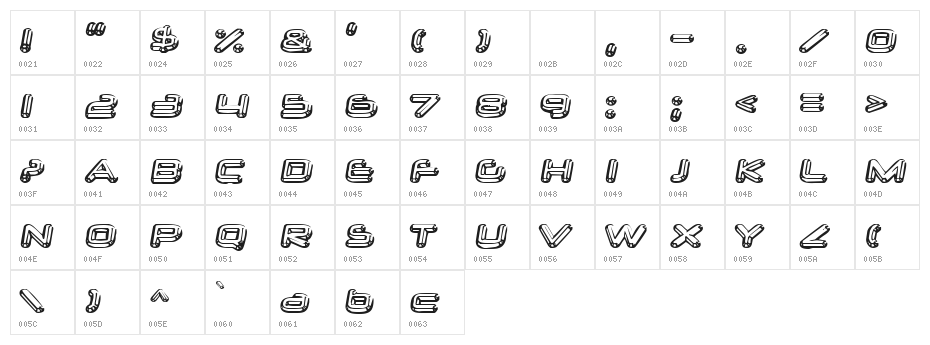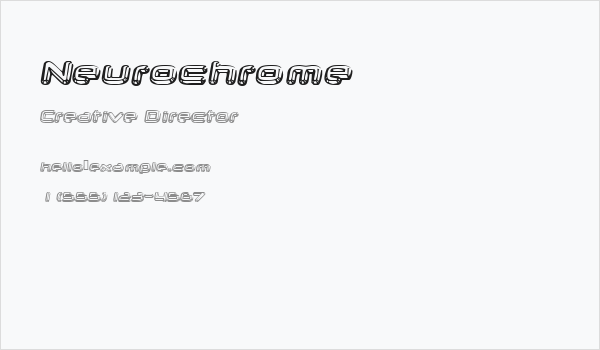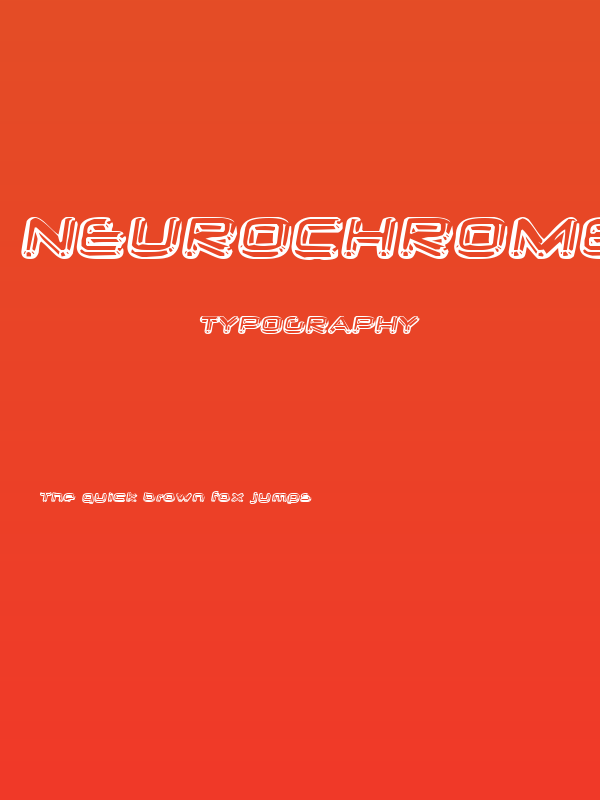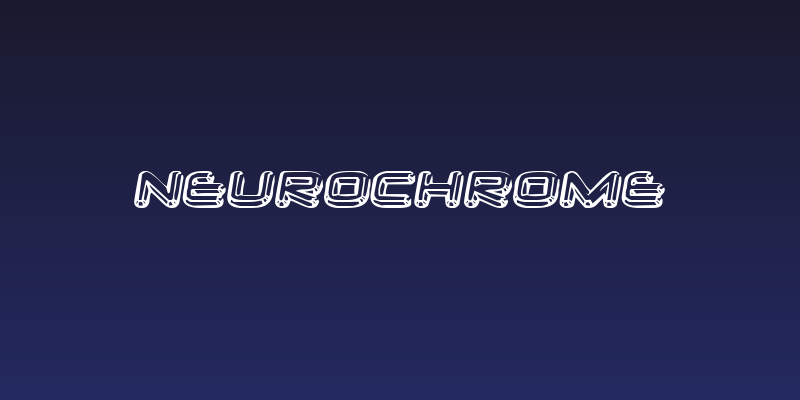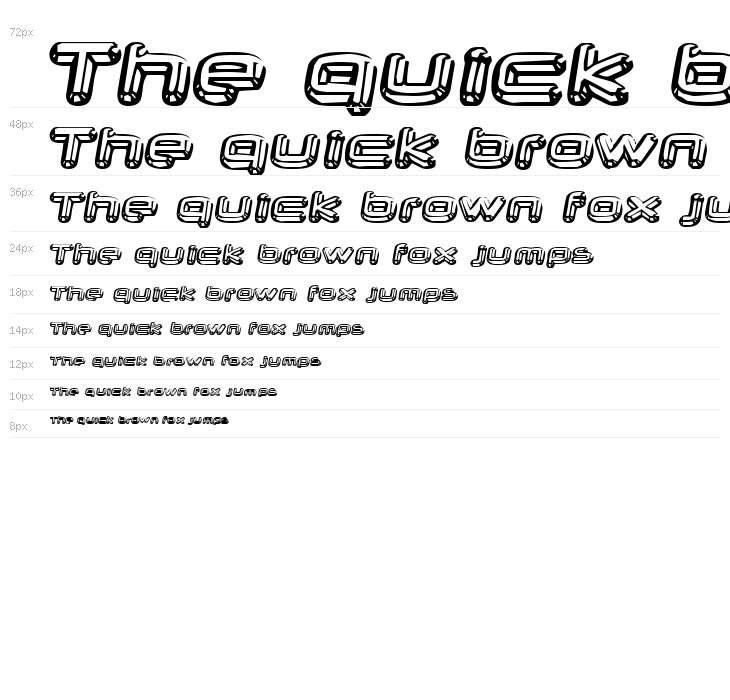
Neurochrome Font
Neurochrome Description
This font features a bold, futuristic design with a three-dimensional effect. The characters are outlined with a thick black border, giving them a distinct, eye-catching appearance. The inner part of each letter is filled with a white space, creating a hollow look that enhances the 3D illusion. The font's style is geometric, with sharp angles and smooth curves that contribute to its modern aesthetic. The uppercase and lowercase letters maintain a consistent style, while the numbers and special characters are designed to match the overall theme. This font is ideal for projects that require a bold and innovative look.